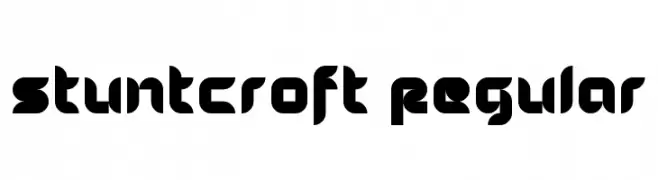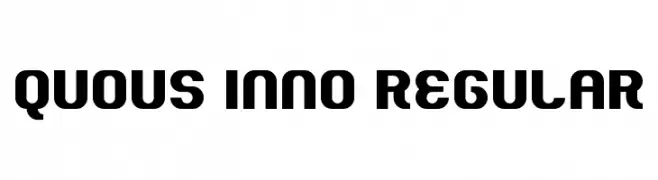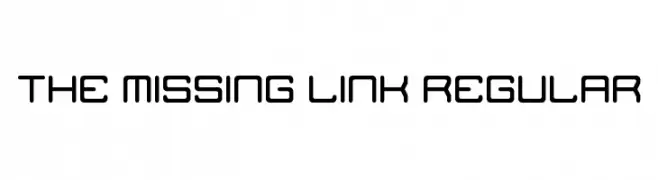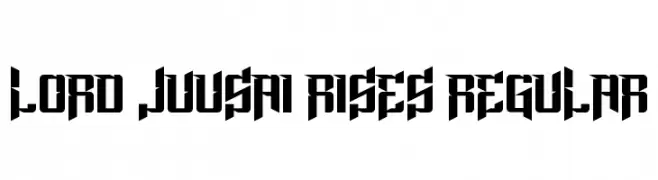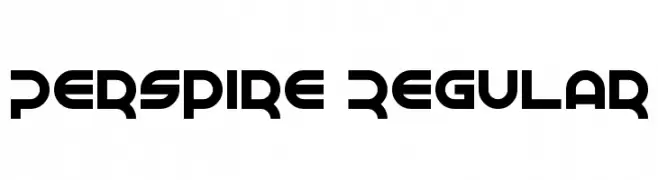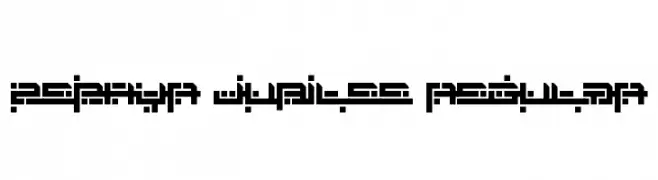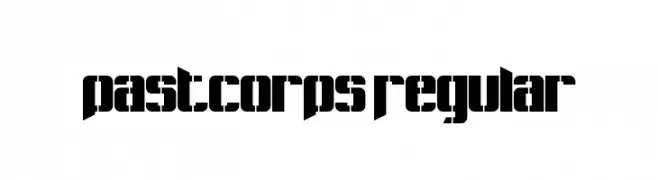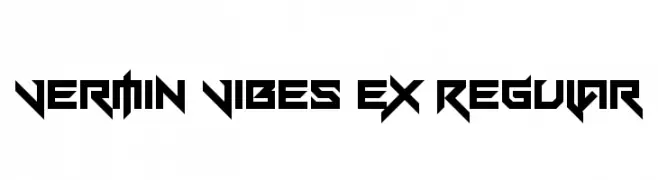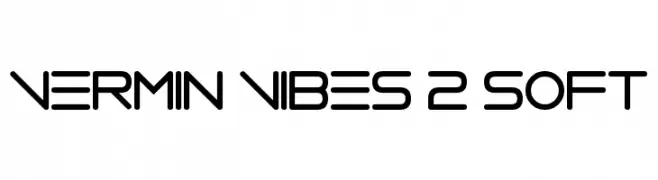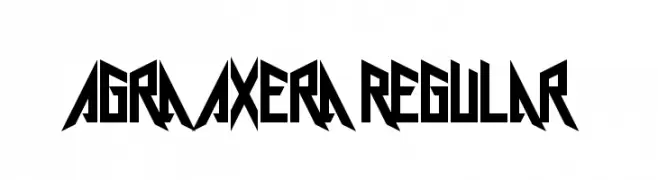
A geometric, angular font with a futuristic and technical design.
A bold, futuristic font with geometric shapes and sharp angles.
A futuristic, geometric font with rounded corners and uniform stroke width.
A bold, geometric font with a modern and edgy design.
A bold, angular font with a geometric and modern design.
A bold, geometric font with a futuristic and modern design.
A geometric, pixelated font with a futuristic digital aesthetic.
A bold, angular font with a Gothic-inspired, modern aesthetic.
A bold, geometric font with angular shapes and a futuristic, industrial feel.
A bold, angular font with a futuristic, geometric design.
A bold, geometric font with sharp angles and a futuristic style.
A classic serif font with medium contrast and elegant serifs.
A futuristic, geometric font with sharp angles and clean lines.
A bold, futuristic font with geometric and dynamic design elements.
A bold, gothic-inspired font with sharp, angular lines and dramatic strokes.
A bold, angular font with sharp, splintered edges for a striking appearance.
A modern, geometric font with rounded edges and consistent stroke widths.
A bold, geometric font with a modern, tech-inspired design.
A pixelated, blocky font with a retro digital aesthetic.
A bold, geometric font with sharp angles and a futuristic style.
A bold, angular font with a futuristic and edgy design.
A pixelated, retro-style font with a blocky, geometric design.
A bold, geometric font with a futuristic and edgy design.
A bold, angular font with a runic, tribal aesthetic.
A futuristic, angular font with sharp edges and a bold, modern style.
A bold, geometric font with a strong, masculine aesthetic.
A bold, geometric font with a modern and strong presence.
A bold, geometric font with angular lines and modern design elements.
An artistic script font with elegant curves and dynamic strokes.
A bold, angular font with a futuristic and dynamic style.
( Fonts by Andrew McCluskey - nalgames.com )
A futuristic, line-based display font with angular and energetic characters.
( Fonts by Andrew McCluskey - nalgames.com )
A futuristic, angular font with bold geometric shapes and sharp edges.
( Fonts by Andrew McCluskey - nalgames.com )